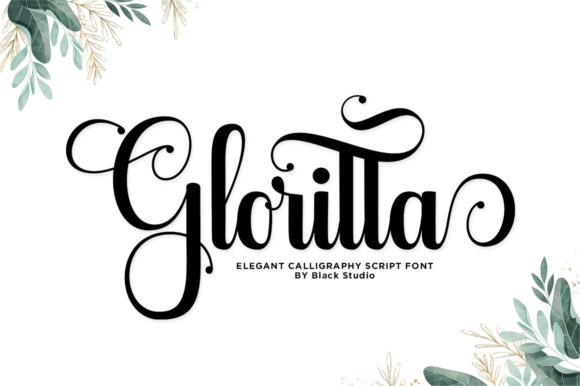
Unleash the Cinematic Charm of Your Designs with Gloritta: The Font That Captivates Every Story
In the realm of visual storytelling, typography holds the power to transport audiences into worlds unknown, evoke emotions, and leave an indelible mark on the heart. Among the vast array of fonts, Gloritta stands tall as a cinematic masterpiece, a script font that weaves a spell of elegance and intrigue.
Crafted with meticulous care by the artisans at Black Studio, Gloritta is a font that captures the essence of the silver screen. Its sweeping curves and delicate flourishes evoke the golden age of Hollywood, while its contemporary twist adds a touch of modern flair. Whether you're a filmmaker, a graphic designer, or a passionate storyteller, Gloritta is your key to unlocking a world of visual enchantment.
With Gloritta, Transform Your Words into Moving Pictures:
Gloritta's cinematic allure lies in its ability to infuse your designs with a sense of drama and movement. Its beautifully crafted characters dance across the page like actors on a stage, captivating your audience with their grace and poise.
Harness the power of Gloritta to:
- Create film posters that evoke a sense of wonder and anticipation.
- Design book covers that transport readers to distant lands and forgotten eras.
- Craft social media graphics that sparkle with cinematic flair.
- Elevate your branding with a touch of old-world glamour.
Unleash the Full Potential of Your Creativity:
Gloritta is more than just a font; it's an invitation to let your imagination soar. Its versatility knows no bounds, making it the perfect choice for a multitude of design projects.
- Create wedding invitations that exude timeless elegance.
- Design logos that radiate sophistication and charm.
- Craft posters for theater productions that capture the magic of the stage.
- Develop marketing materials that leave a lasting impression.
The Possibilities Are Endless:
With Gloritta, the possibilities are limitless. It's a font that empowers you to tell stories, evoke emotions, and create designs that leave an unforgettable mark.
So, embark on a cinematic journey with Gloritta today. Let your words dance, your designs shine, and your creativity flourish. The world of visual storytelling awaits your arrival.